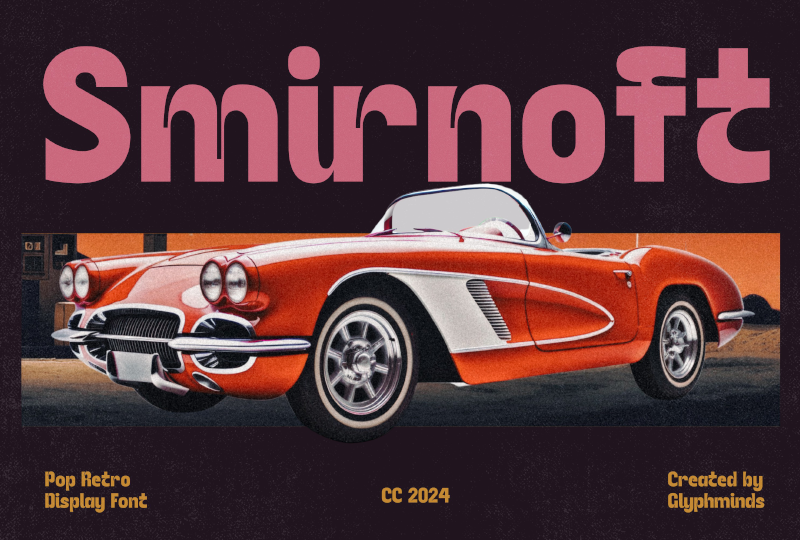
Smirnoft
Glyphminds Studios · Regular · Smirnoft
https://graphicted.com/product/smirnoft-font/ Introducing ‘Smirnoft, a pop retro display font that brings a touch of vintage flair to your modern designs. Inspired by the classic aesthetics of the mid-20th century, this font is perfect for adding a nostalgic yet futuristic vibe to your projects. Whether you’re working on posters, logos, or social media graphics, Smirnoft’s bold and curvy letters will make your text stand out. Created by Glyphminds, this font is a must-have for any designer looking to capture the essence of retro-futurism.” NOTE: This demo font is for PERSONAL USE ONLY! Be very careful and take the time to read any and all documentation before deciding to use a font commercially. Ignorance is not an excuse for breaking the law. By installing or using this font, you are hereby agree to this Product Usage Agreement: